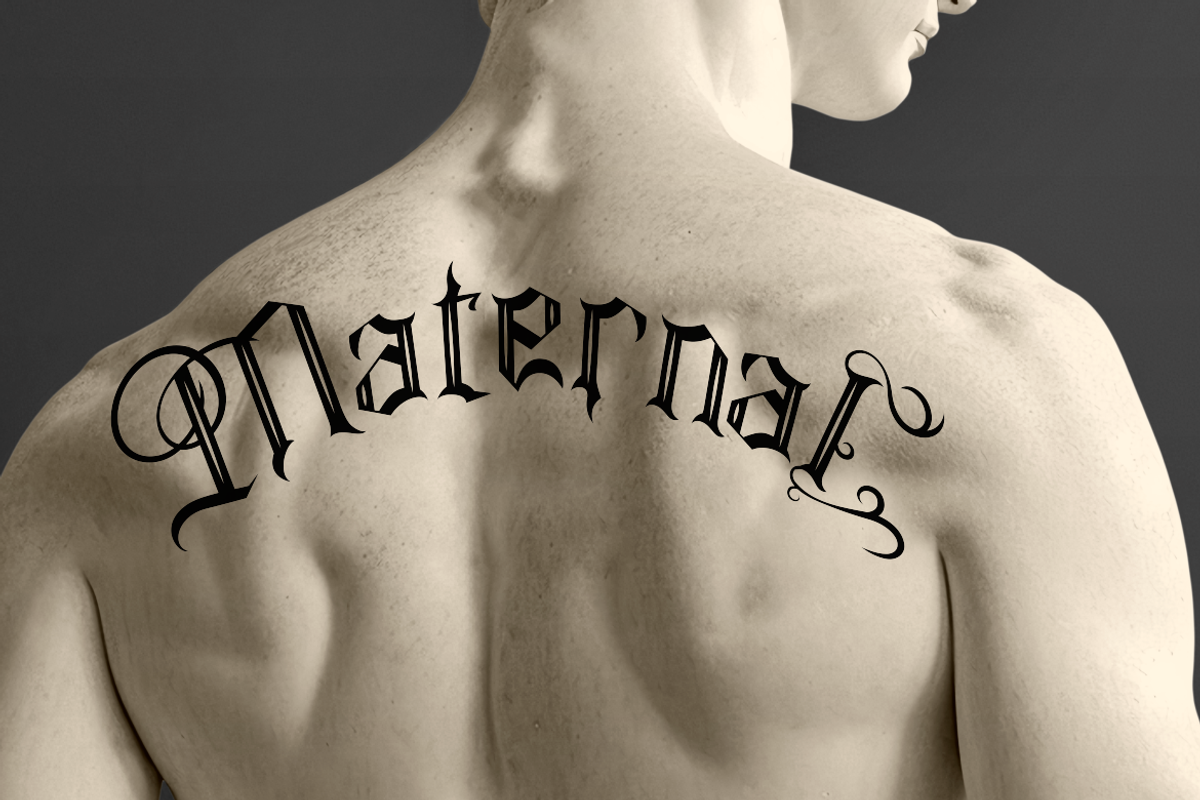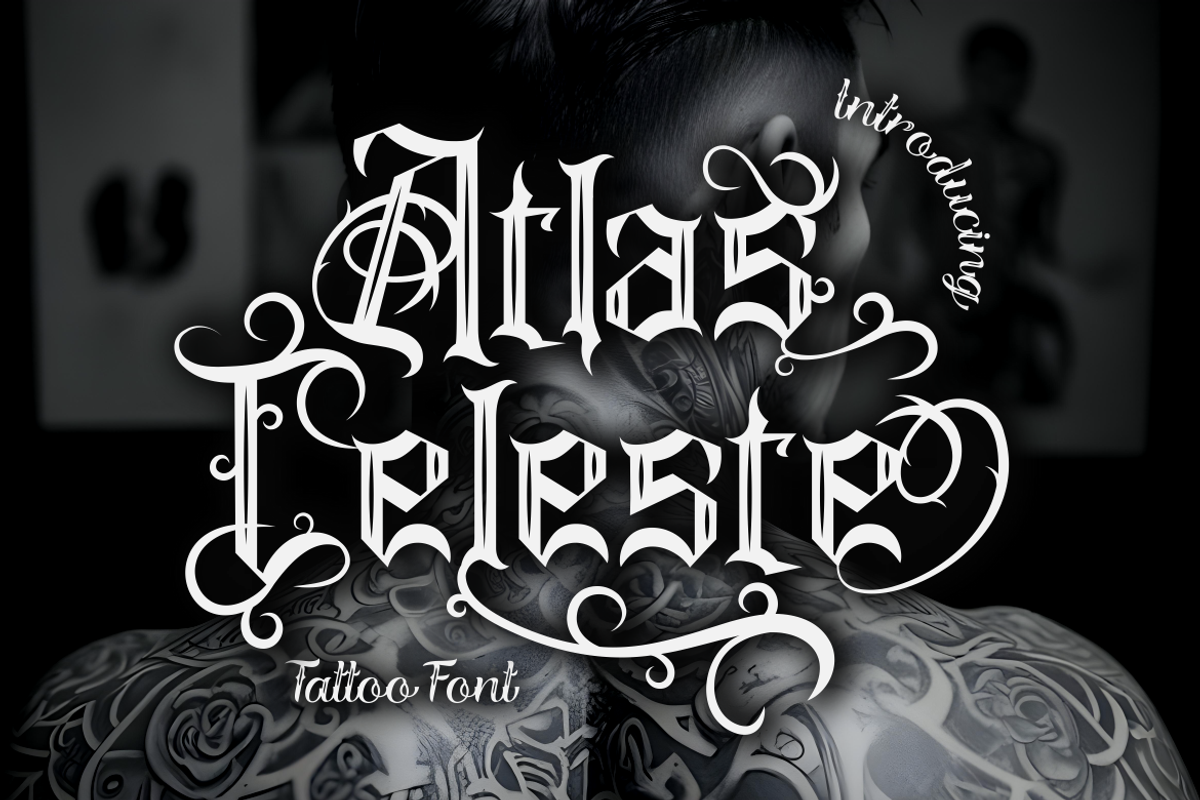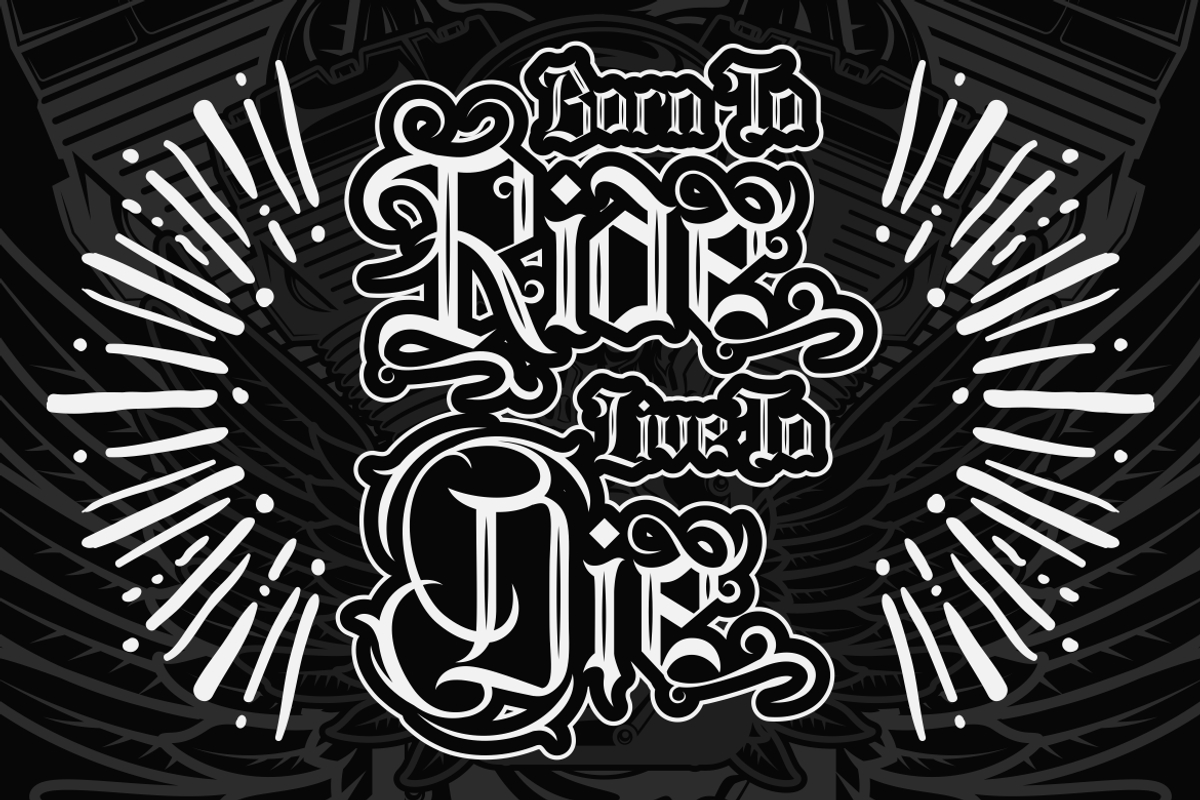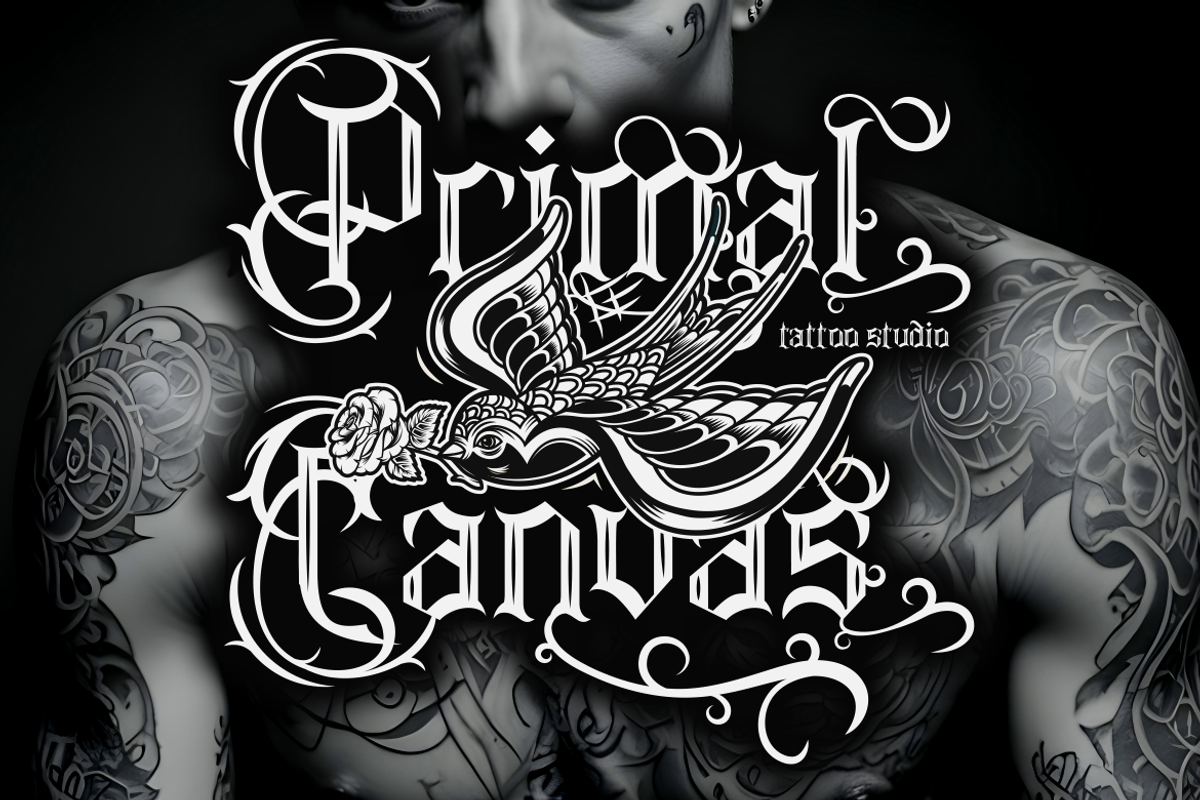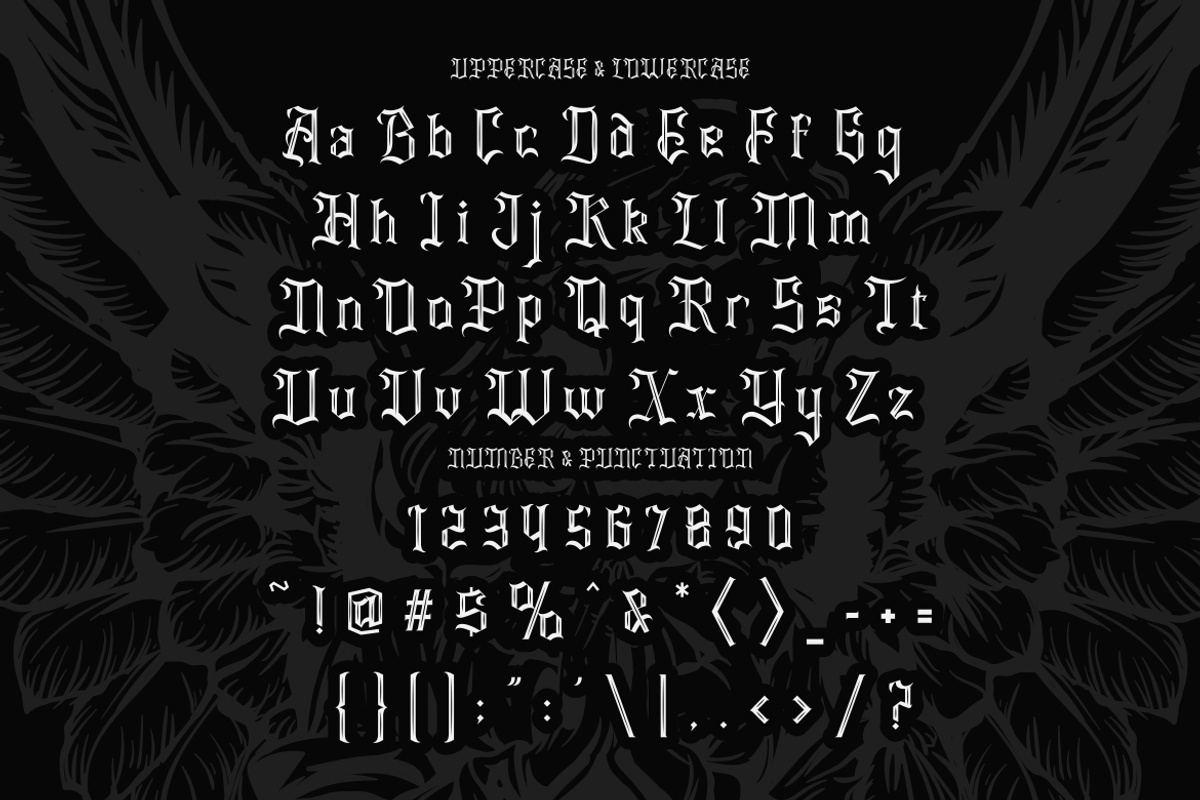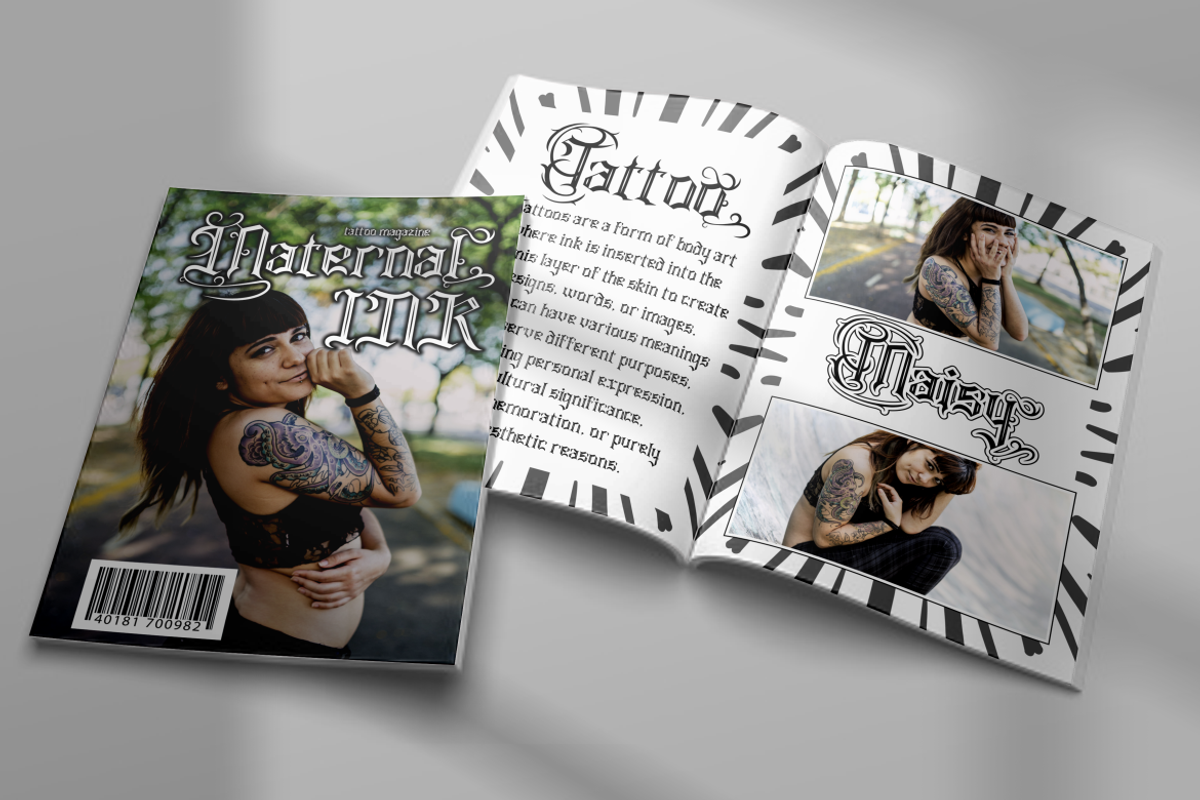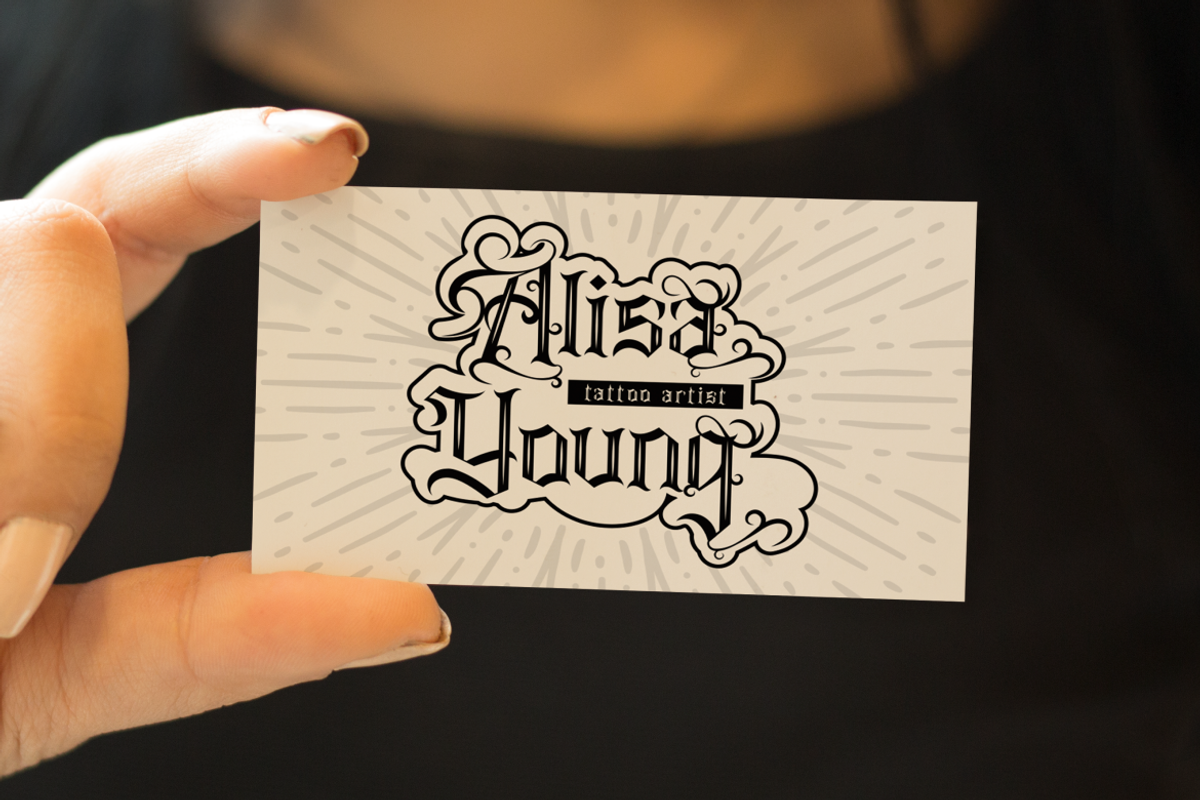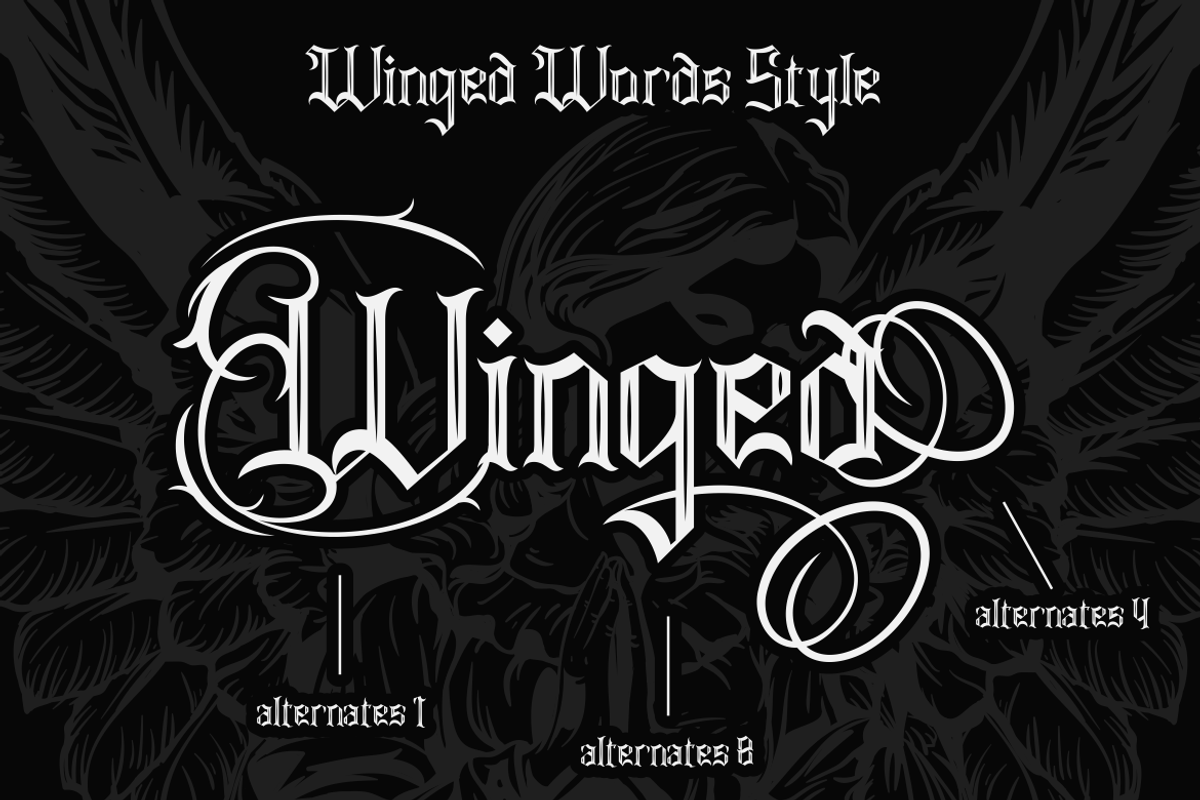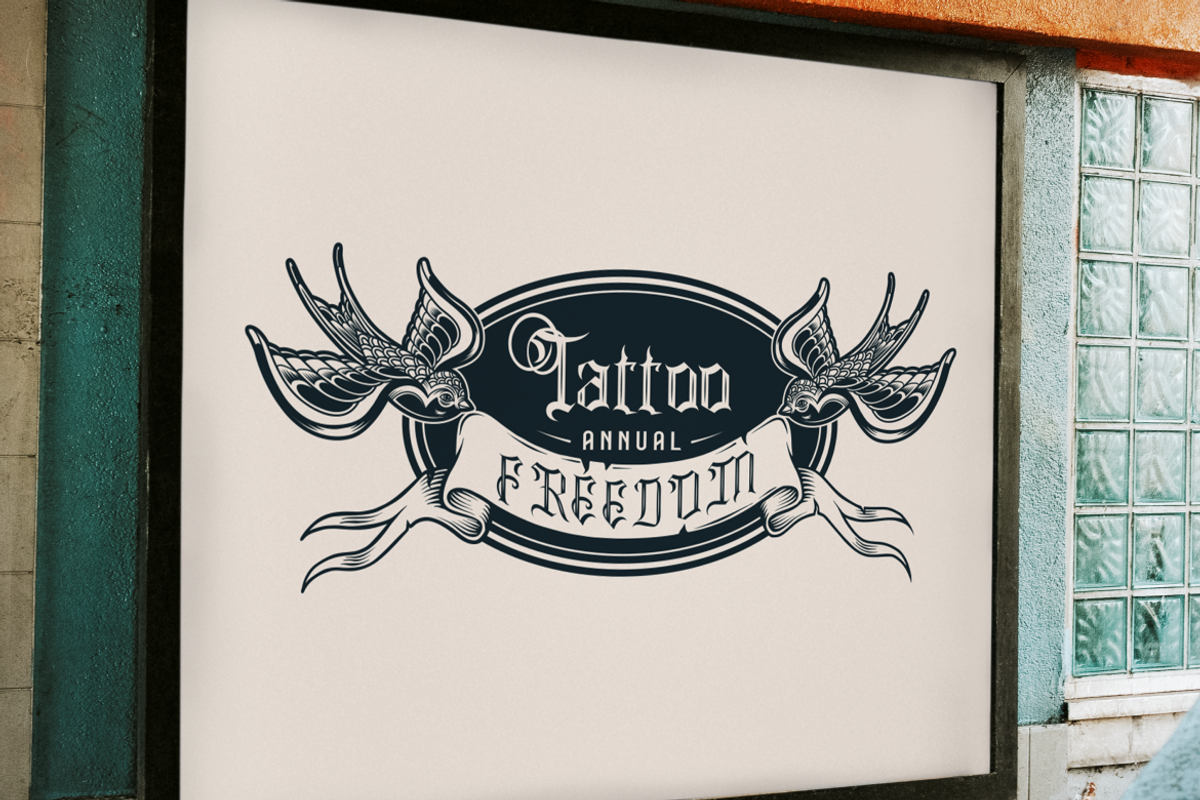
Atlas Celeste - Tattoo Font
Introducing Atlas Celeste - Tattoo Font, a powerful blackletter font designed to bring a bold, gothic essence to your creative projects. Inspired by classic tattoo art, Atlas Celeste embodies an intricate blend of dark curves and sharp edges, evoking a sense of mystery and elegance. Its blackletter design is perfect for projects requiring a strong, impactful visual statement, whether you're designing logos, posters, or even film titles. With a unique combination of traditional ink-like strokes and modern design elements, this font adds a vintage yet timeless touch to any medium, giving your designs a distinct and bold flair.
Atlas Celeste is more than just a tattoo-inspired font—its gothic and inked style makes it ideal for a range of uses, including branding, book covers, invitations, and more. The font's detailed ligatures and ornamental swashes ensure that every letter stands out with artistic flair, making it a must-have for projects that require a dramatic and authentic blackletter style. Whether you're creating packaging for edgy products or crafting eye-catching headlines, Atlas Celeste is a perfect fit for bringing a dark, artistic touch to your designs.